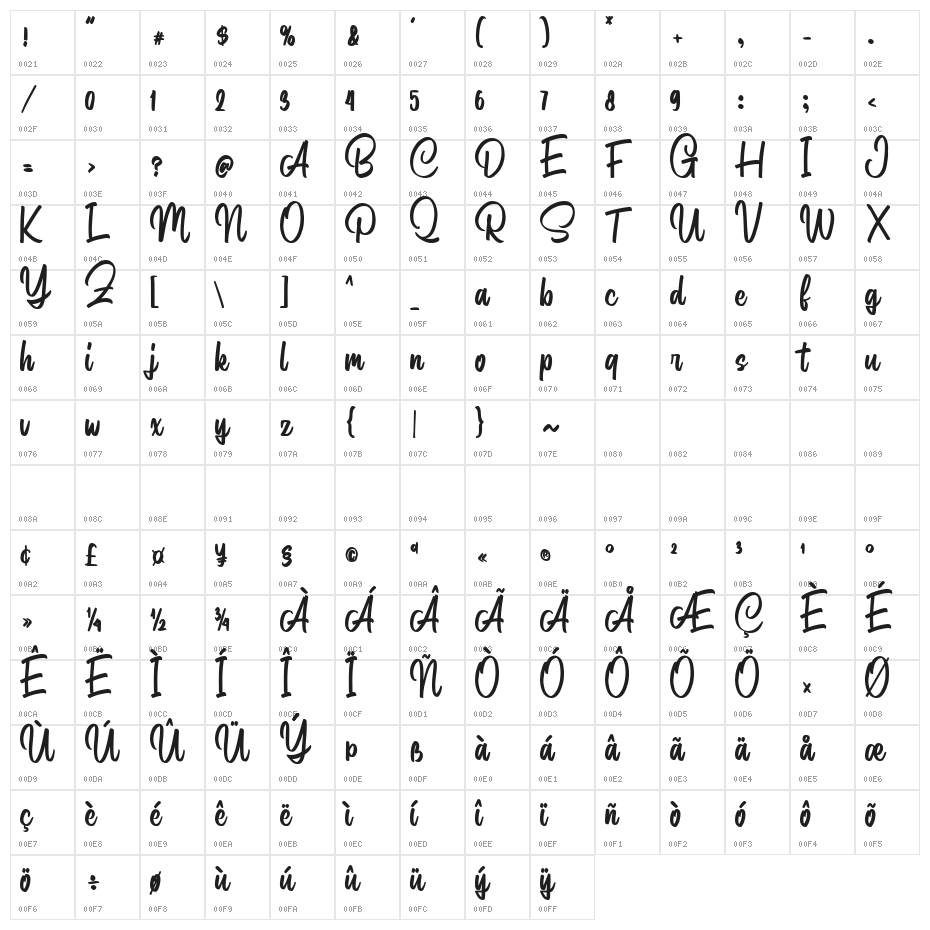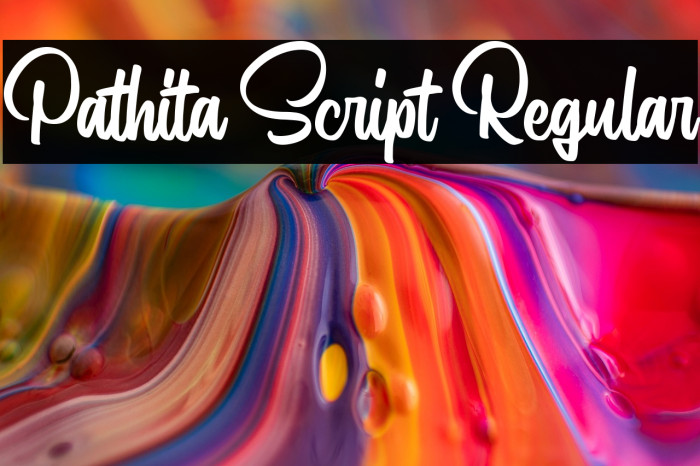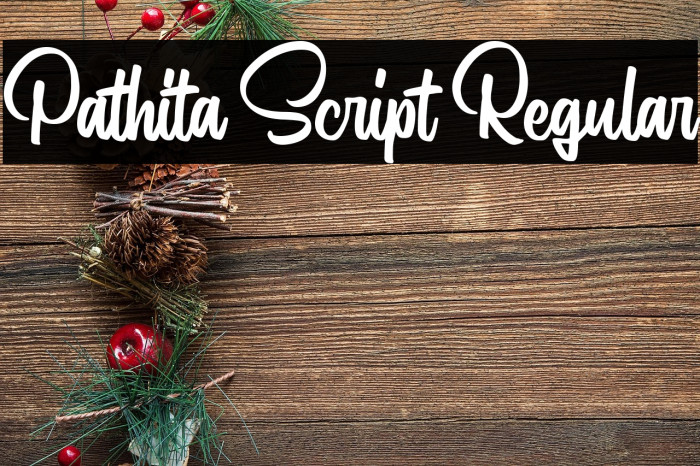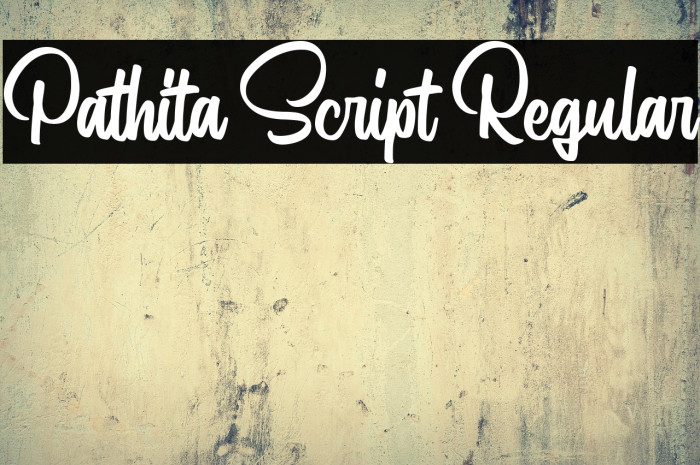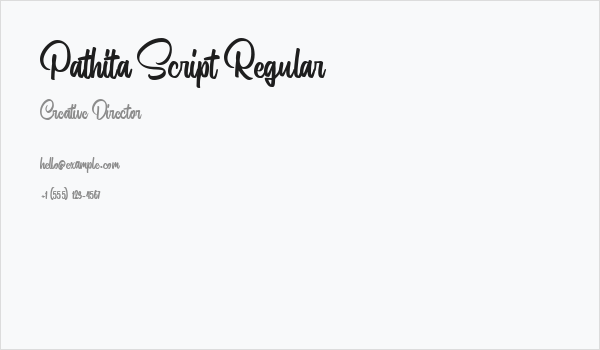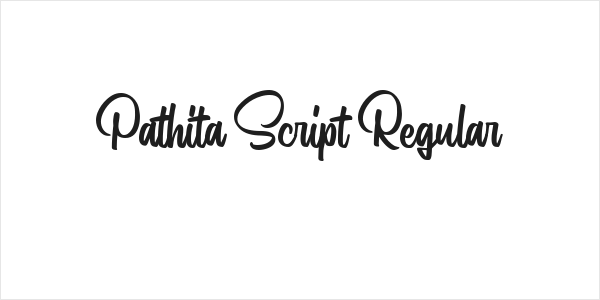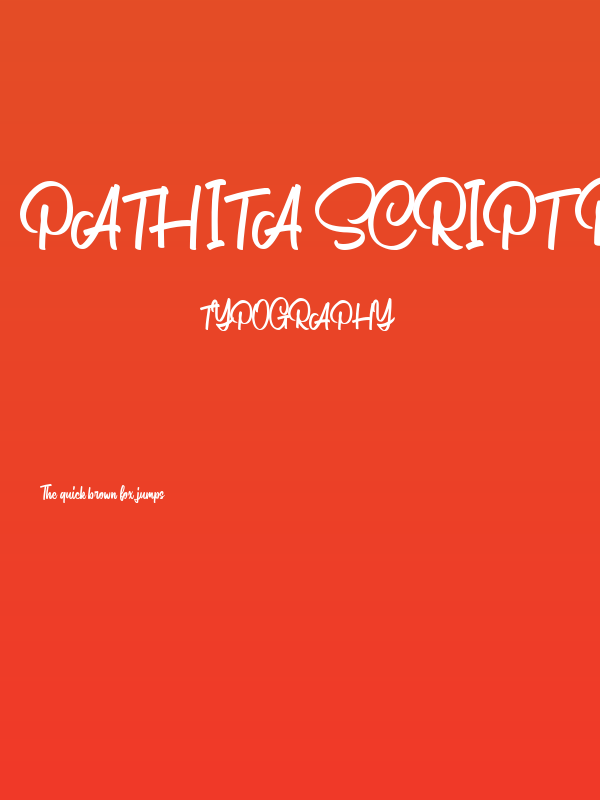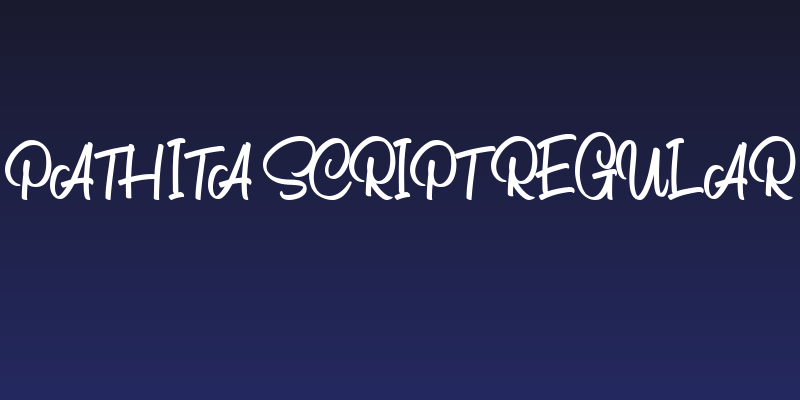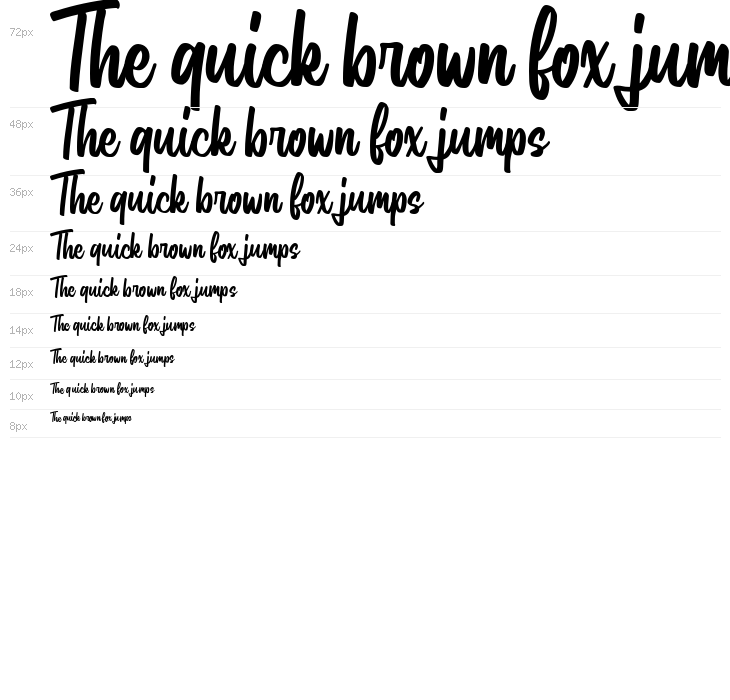
Pathita Script Regular Font
Pathita Script Regular Description
This font features a lively and flowing script style, characterized by its smooth, cursive letterforms that convey a sense of elegance and fluidity. The uppercase letters are slightly more upright, while the lowercase letters exhibit a charming slant, enhancing the handwritten feel. The strokes are consistent in weight, providing a balanced appearance. The numerals and special characters maintain the same playful and dynamic style, making the font versatile for various creative applications. Its overall look is both modern and approachable, suitable for projects that require a personal touch.
| Use Case | Logos, Invitations, Social Media |
| Proposed Projects | Ideal for wedding invitations, greeting cards, branding, and social media graphics. |